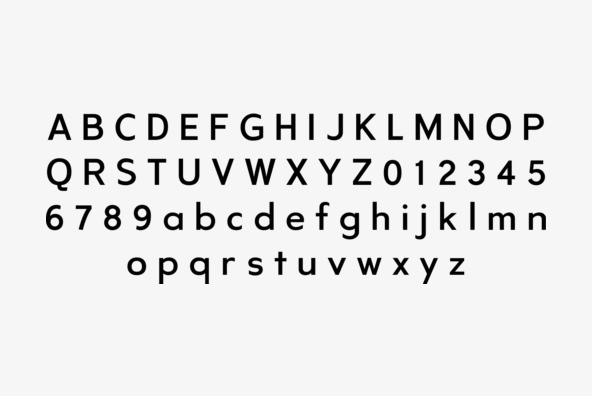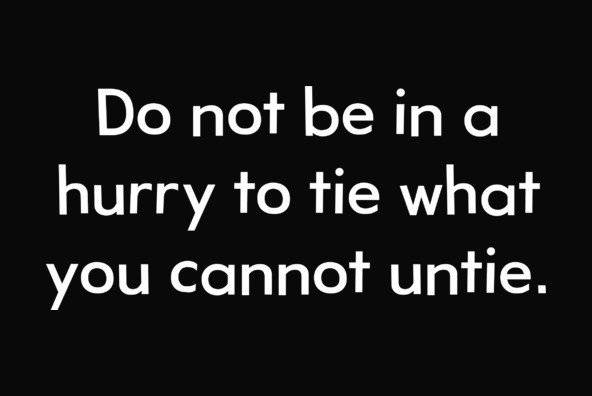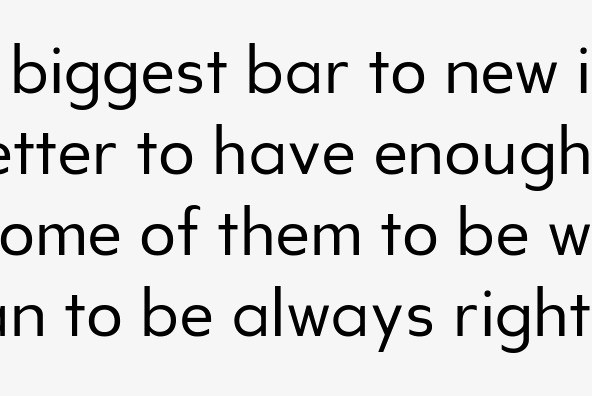
Golden Days™ and Golden Age™ are both based on retro sans serif type designs from the 1950s. Each font in the Golden Days™ family has a full character set of 236 letterforms, with all characters designed in the style of the font.
Golden Days™ and Golden Age™ are both based on retro sans serif type designs from the 1950s.
STAGGERED FONTS and BASELINE SHIFTS
When you need to create a little more stress in your designs, the Golden Days™ Strays fonts may be just the ticket. The alphabetical characters are set with baseline shifts and at random angles. However, when setting words with double letters, as in the "tt" in the word "letters" you will find that the duplicate letters don't look as good when they are shifted by the same amount. In order to create a more dynamic effect, it is recommended that you manually shift one of the letters in order to improve the appearance of such words.
GOLDEN DAYS versus GOLDEN AGE
These two font families are somewhat similar, but actually have some very different characteristics. While the x-heights of the lowercase characters is the same in both font styles, the uppercase characters in the Golden Days™ fonts have a higher x-height, and in most cases the characters outlines are proportioned differently. The ascender and descender lengths are also different. The character widths are generally wider in the Golden Days™ fonts and the "a" character is in the style of an italic "a", which really plays a strong role in changing the appearance of the set text. You can license both families together at a reduced special rate.
BRACKETS and PARENTHESES
The brackets and parentheses have been positioned so that they work best with words set in lowercase letters. When setting uppercase text, it is recommended that you apply a manual baseline shift to these characters so that they are at a level more suitable for the uppercase letterforms.
ALTERNATE "a"
Both the Golden Age™ and Golden Days™ fonts have an alternate "a" character in the a-ring character slot (option-a for Mac users--alt 0229 for PC users). Simply mask the ring if you wish to use the alternate vowel without the ring.
FULL CHARACTER SET
Each font in the Golden Days™ family has a full character set of 236 letterforms, with all characters designed in the style of the font.